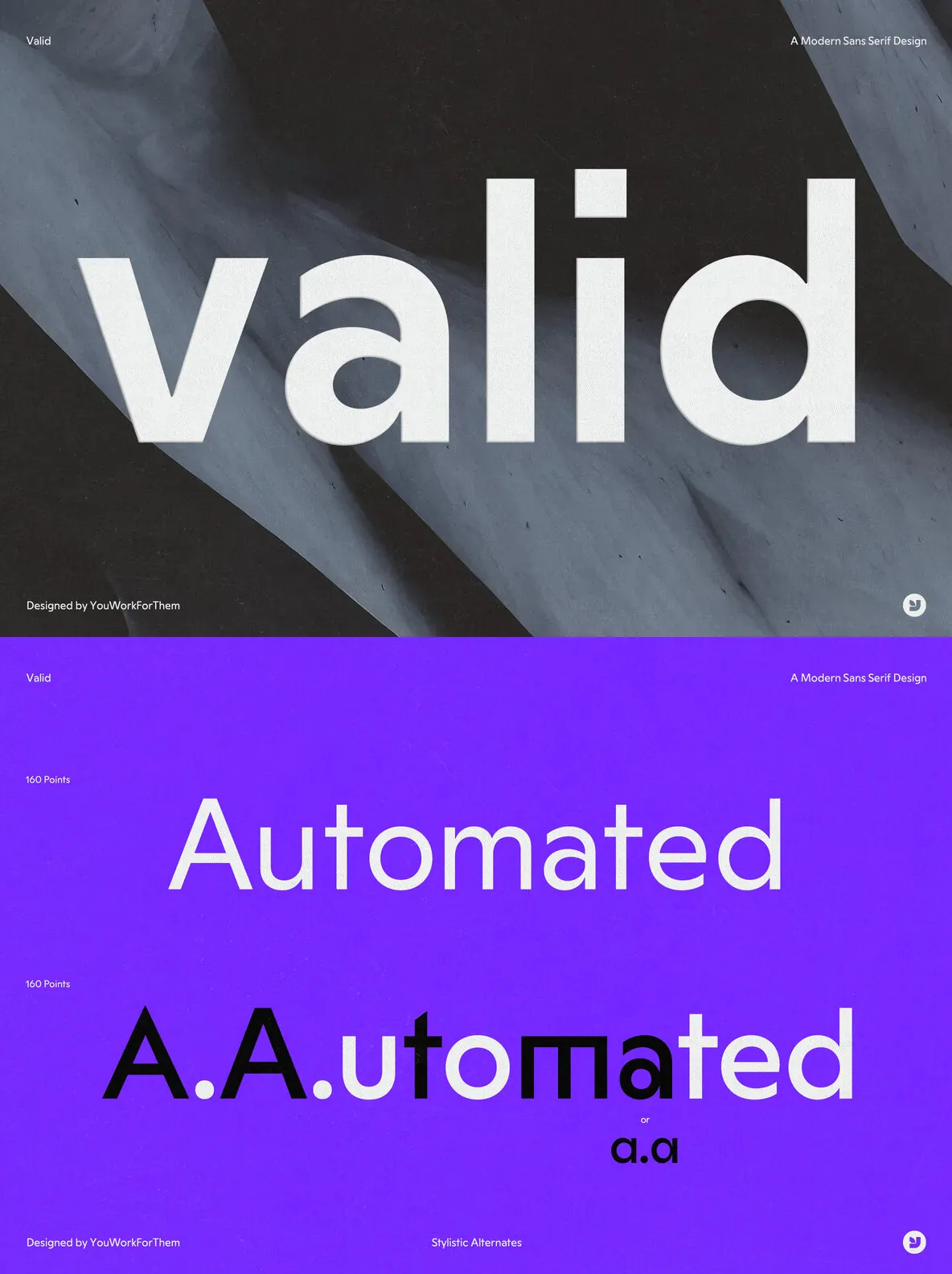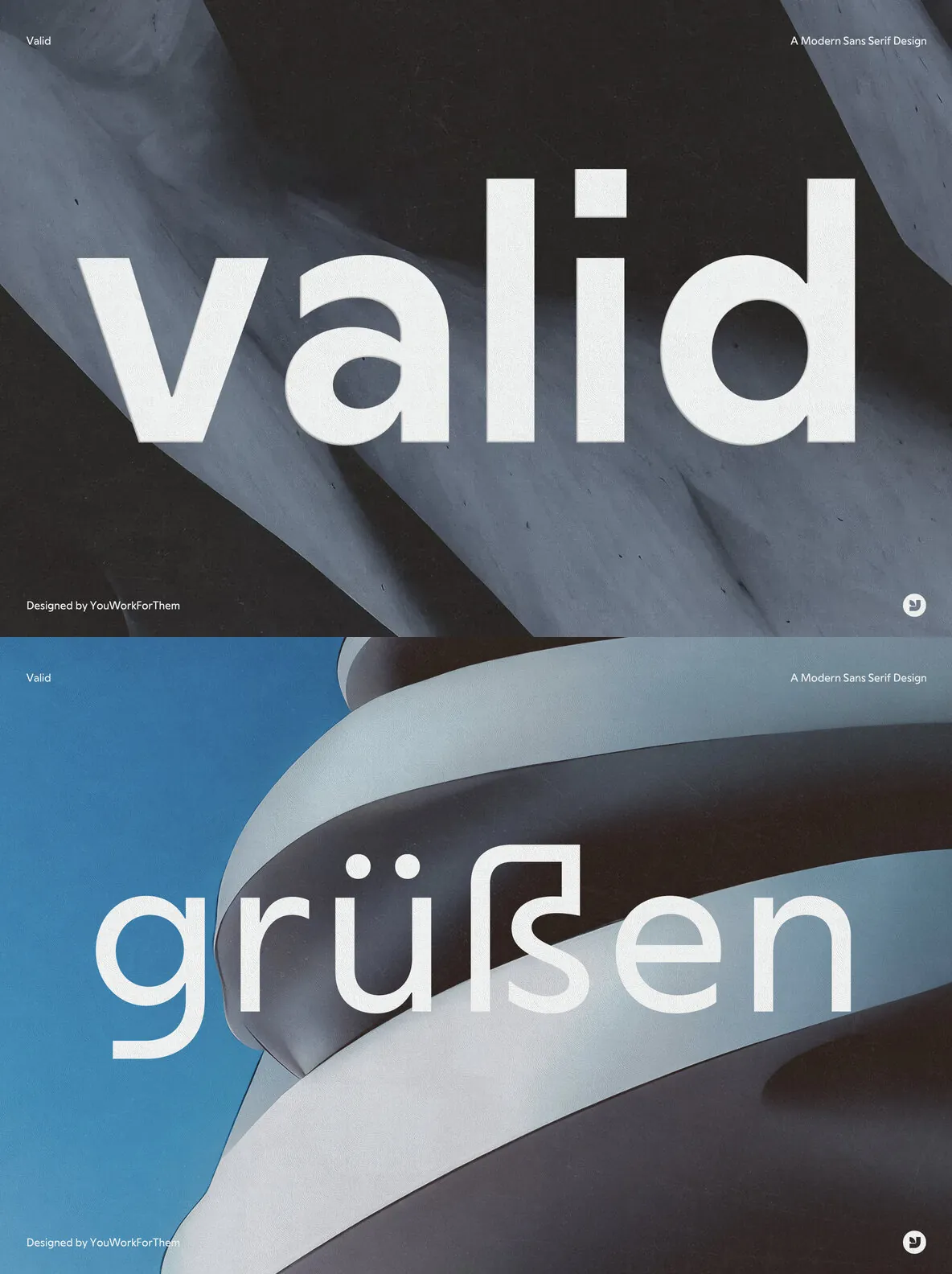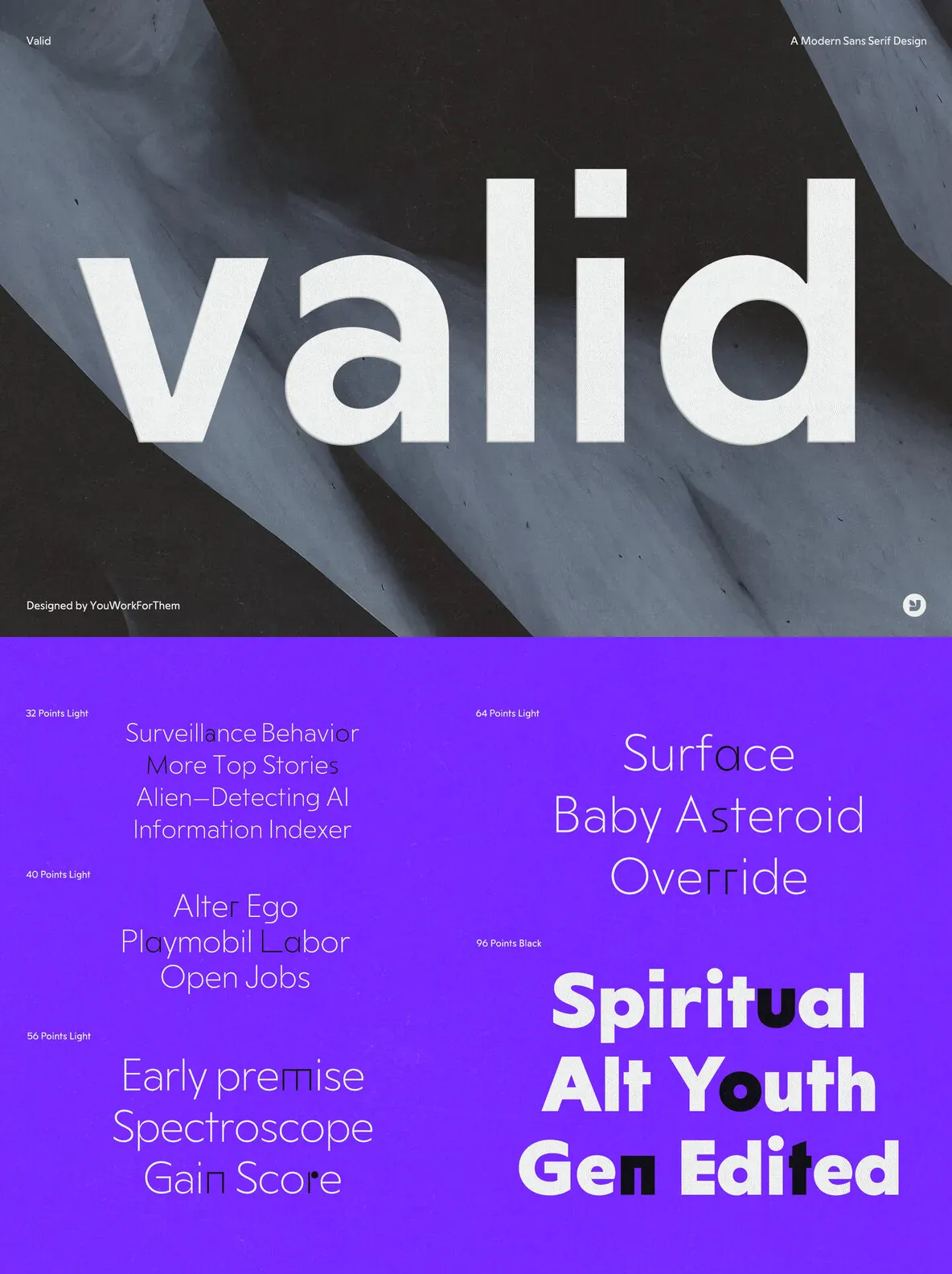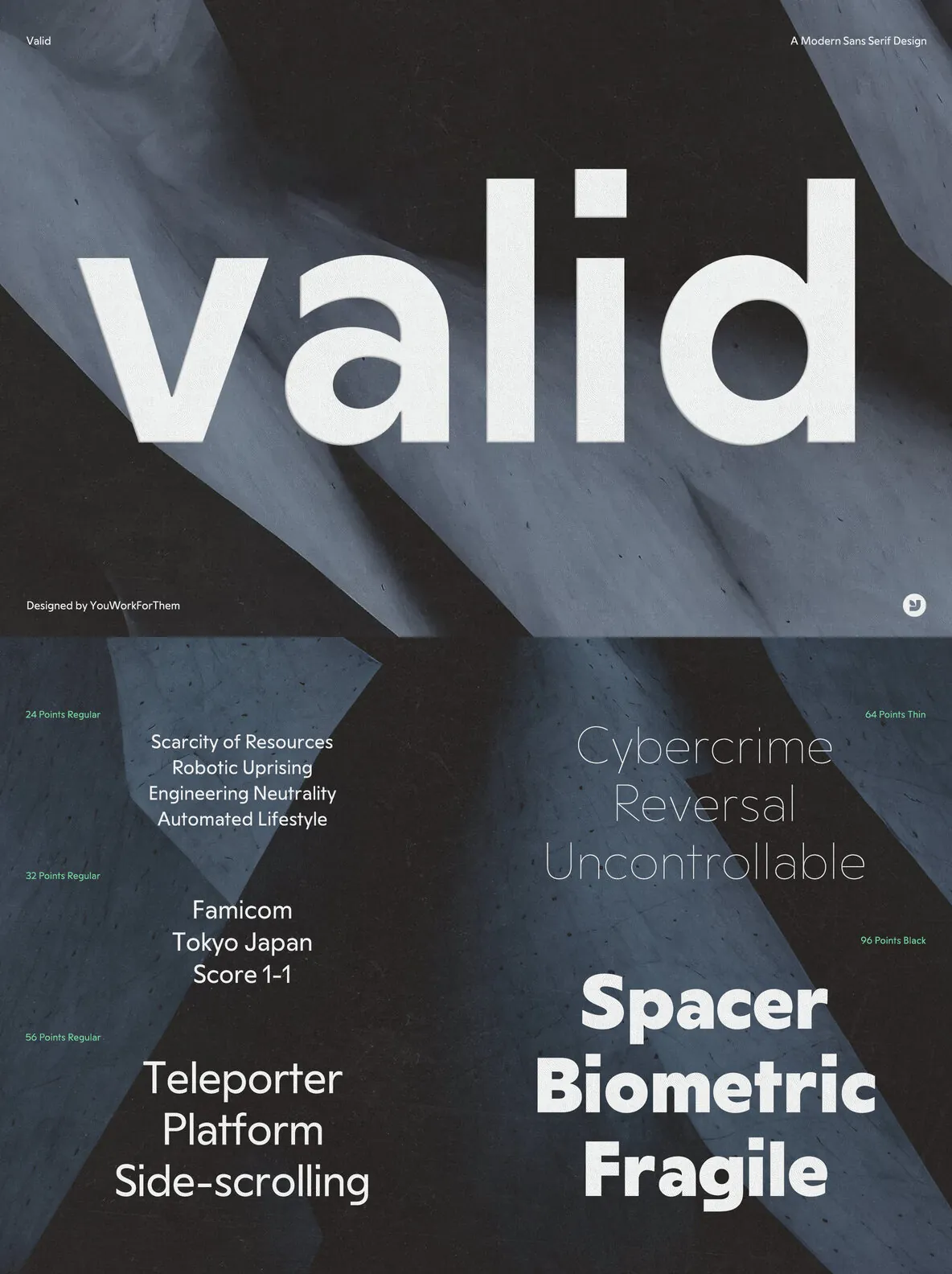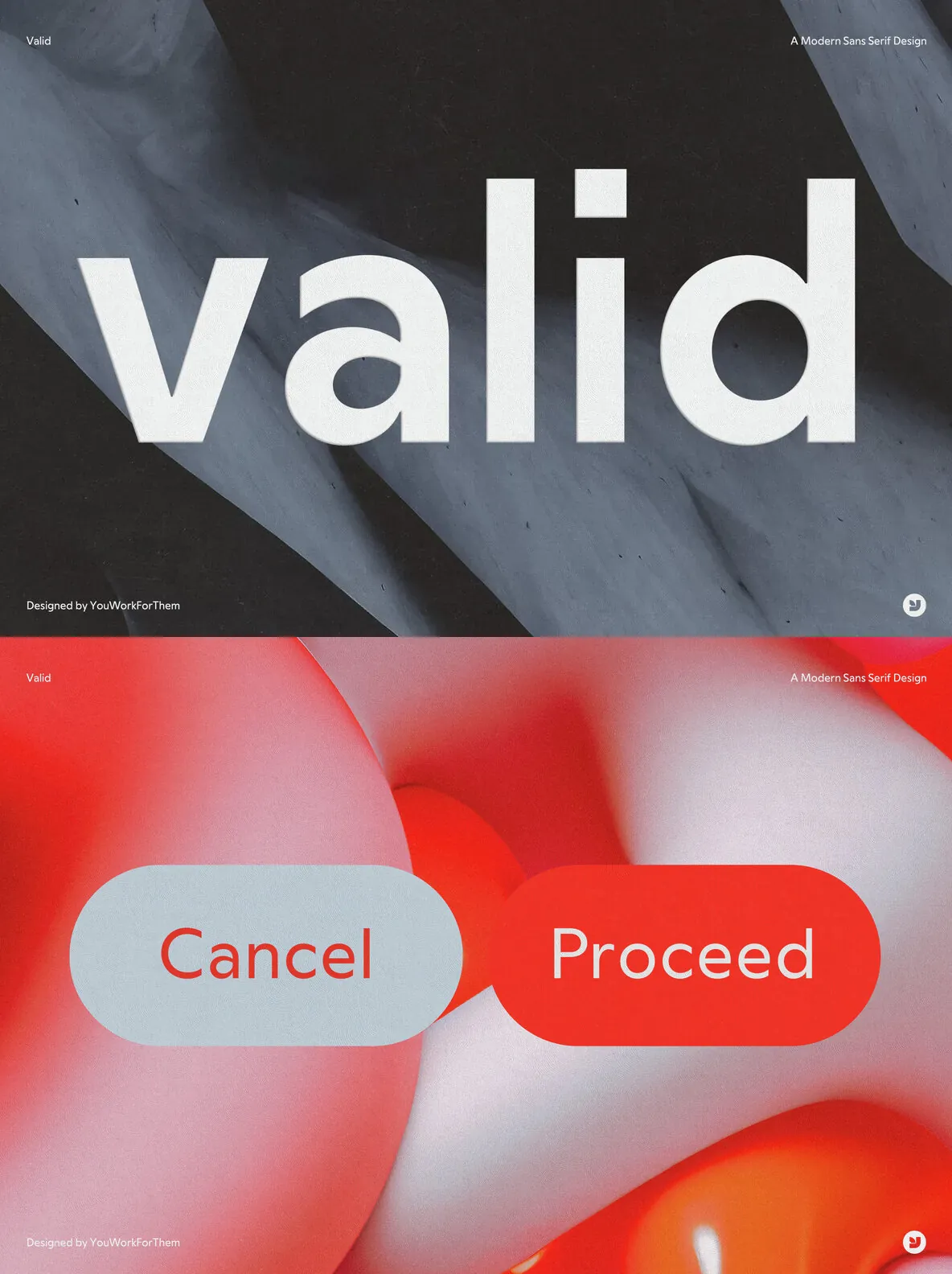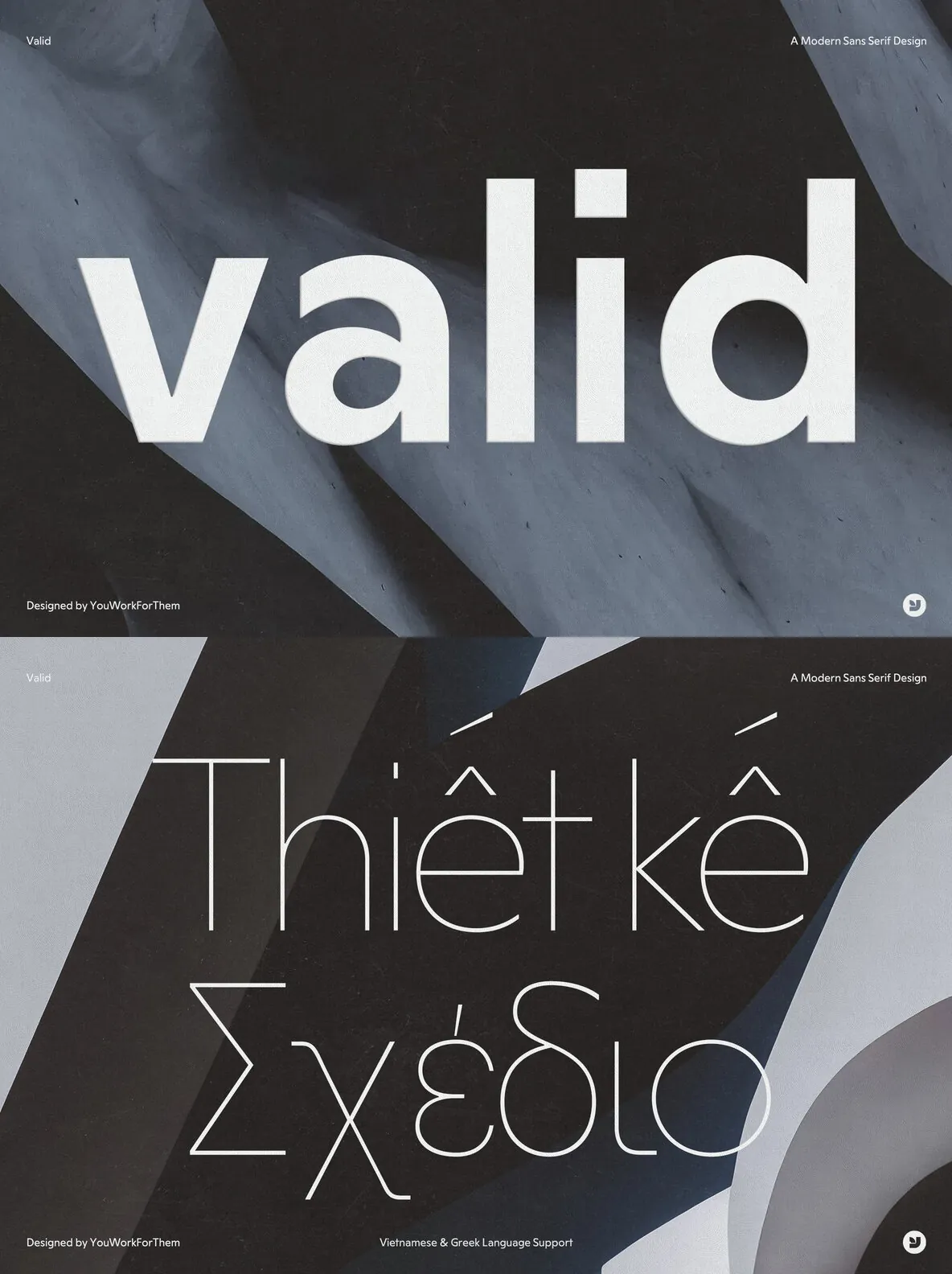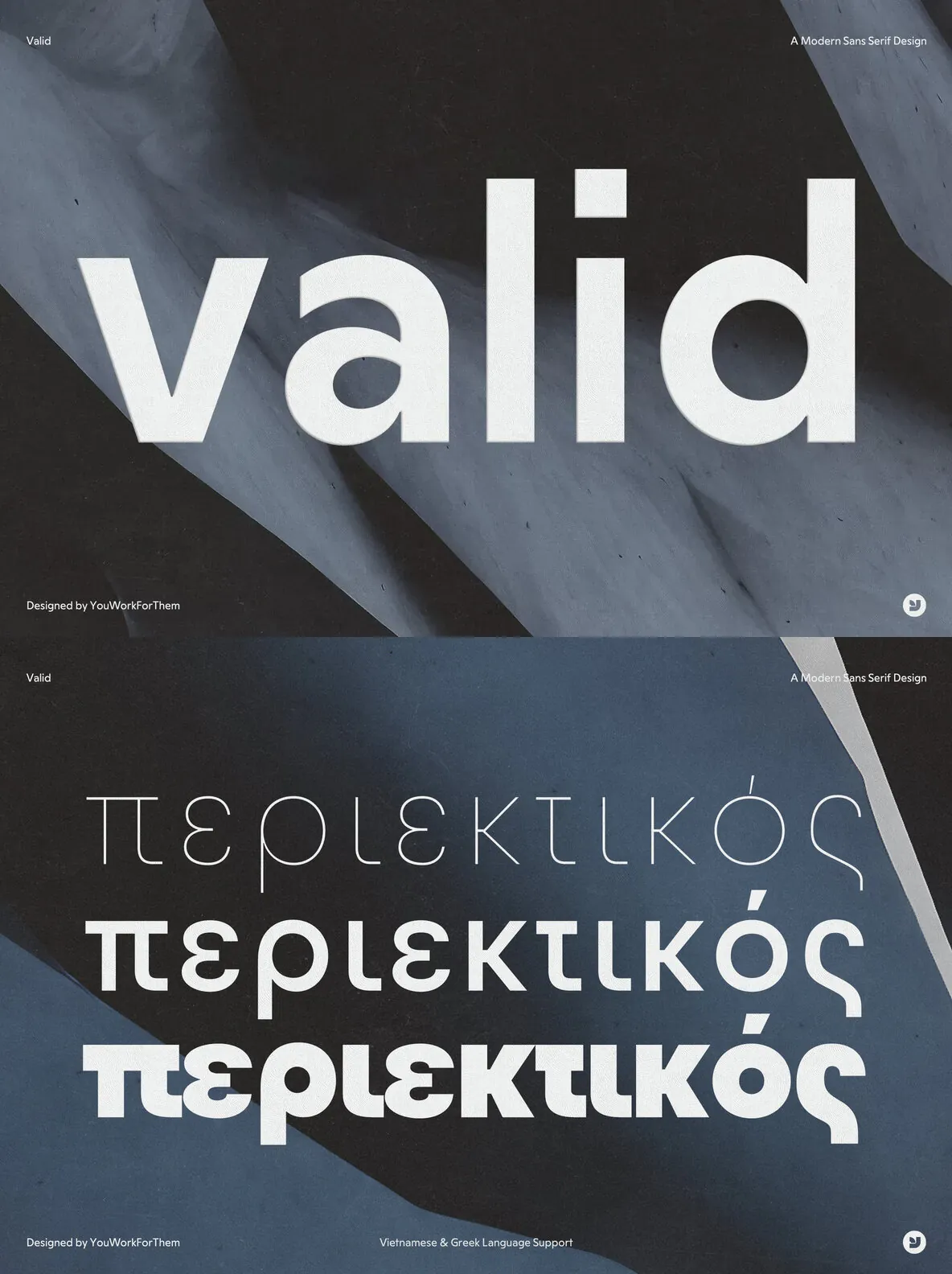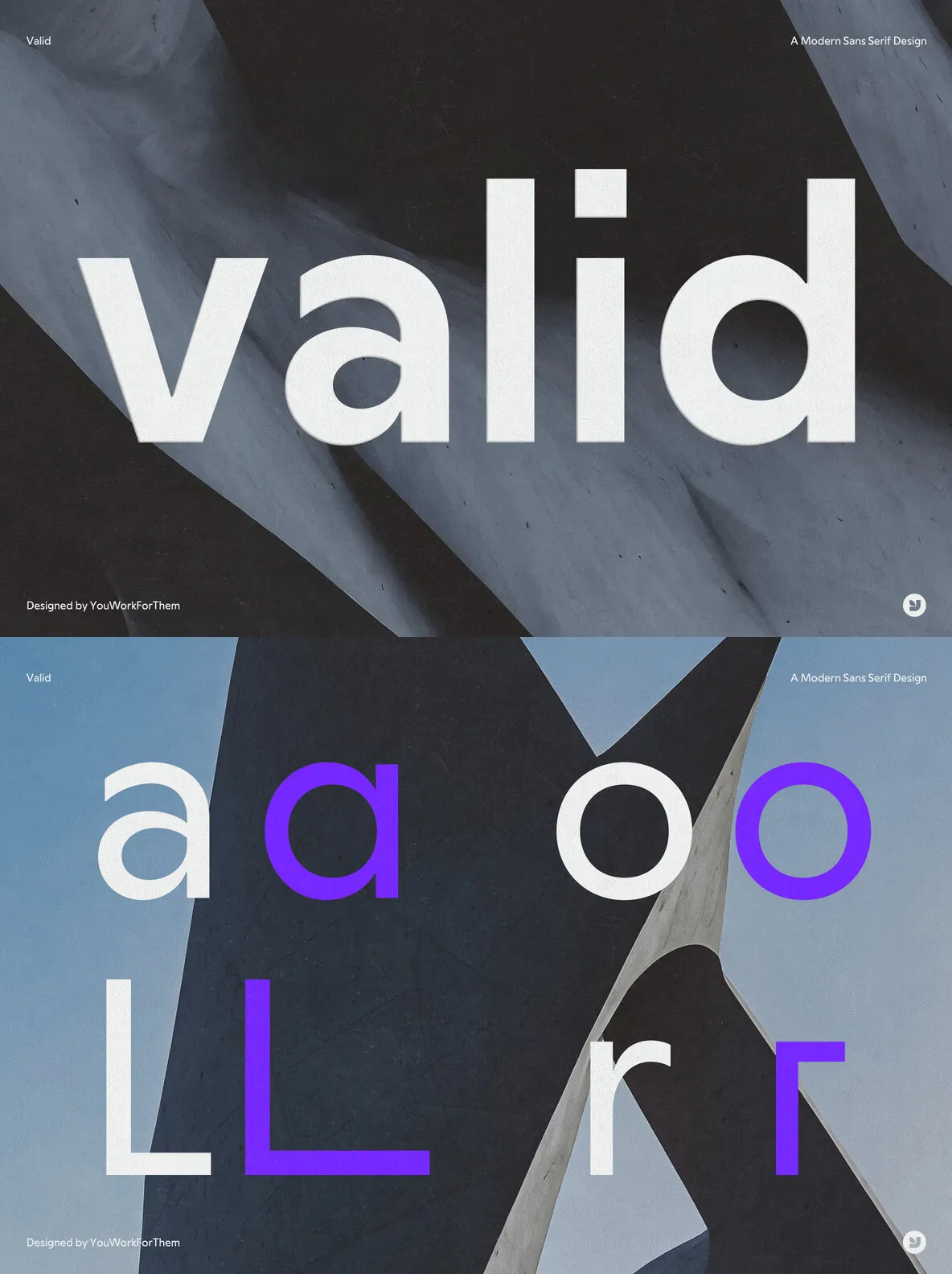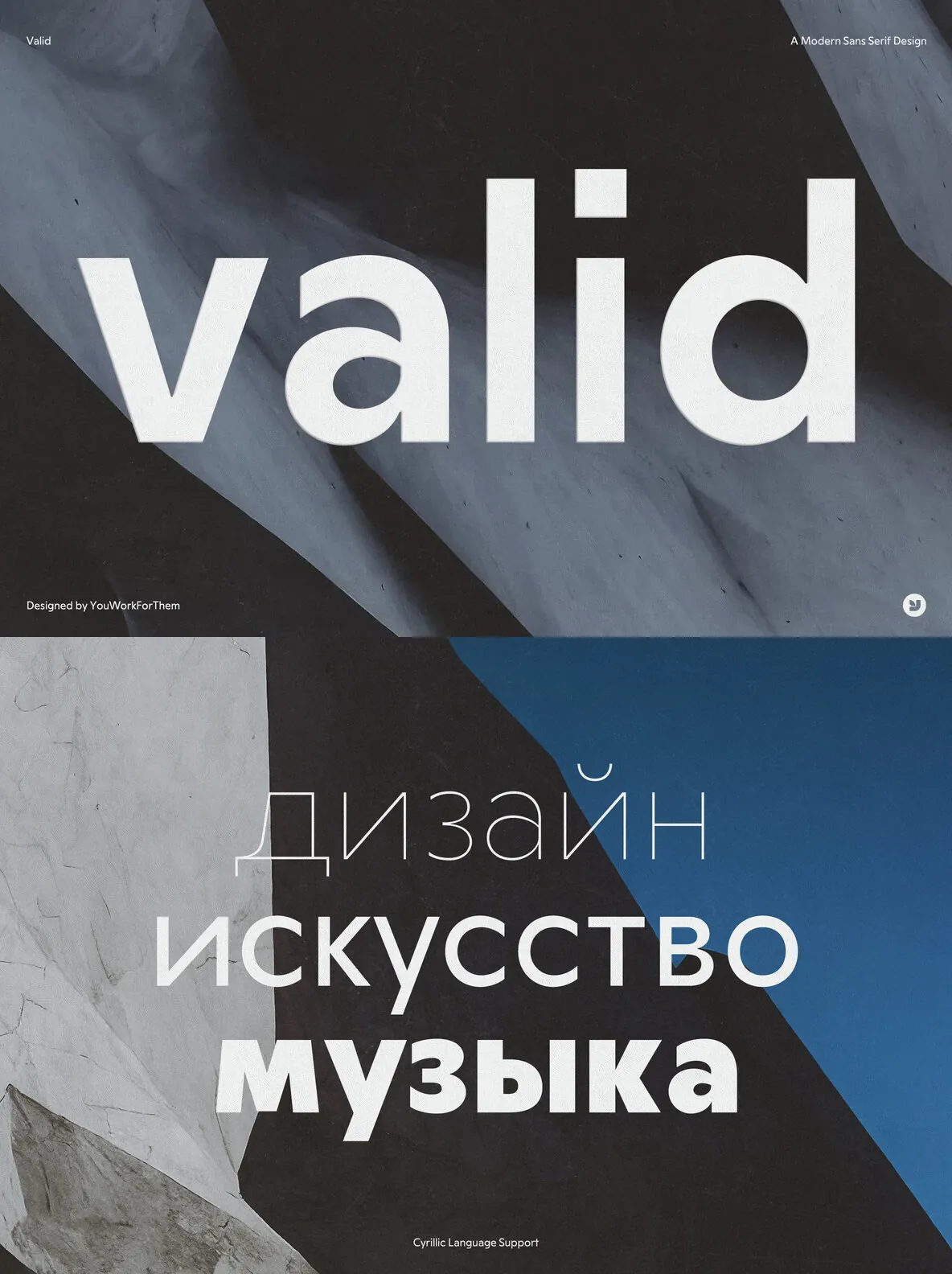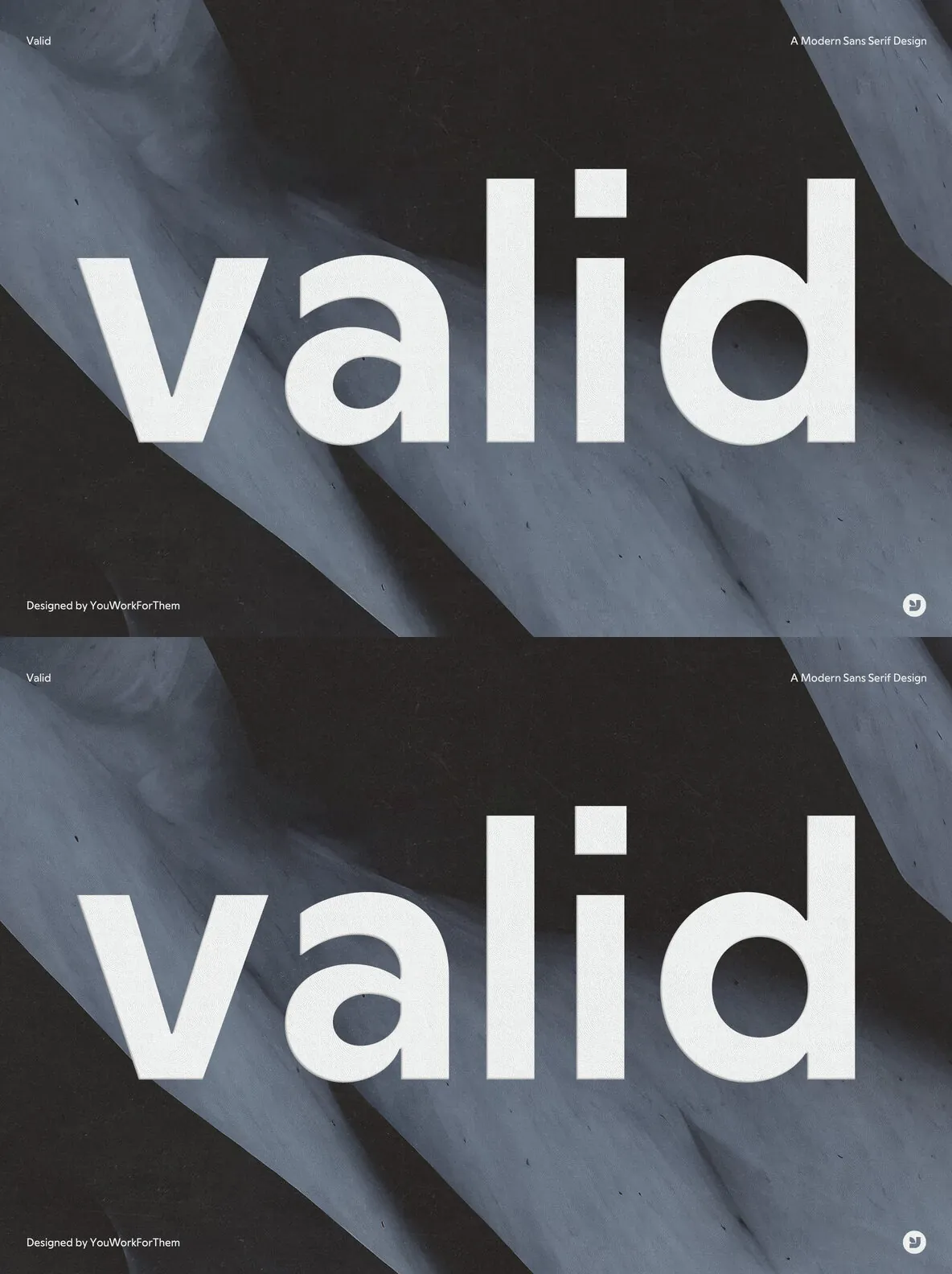
Introducing Valid: The All-New Sans-Serif Typeface for Modern Design
Valid is the latest addition to our font library, designed and published by YouWorkForThem. This all-new sans-serif typeface was created from the ground up, using Bauhaus design principles as its foundation but with a modern and geometric twist. The result is a versatile and stylish font that works seamlessly for a wide range of design projects, including mobile apps, social media marketing, content, headers, and display use.
The Design Philosophy Behind Valid
At YouWorkForThem, we believe that great design is the cornerstone of all creative projects. That’s why we designed Valid with a unique blend of traditional and modern design principles. Our team of designers drew inspiration from the Bauhaus movement, which emphasized functionality and simplicity, to create a clean and minimalist design that is both elegant and efficient. We combined this classic design approach with a contemporary geometric twist, resulting in a typeface that is both timeless and modern.
OpenType Font Features:
Stylistic Alternates
Discretionary Ligatures
Localized Forms
Stylistic Sets
Extended Language Support:
Latin
Greek
Cyrillic
Vietnamese
Western European
Euro
Baltic
Central European
Pan African Latin
Dutch
The Versatility of Valid for Digital Design
Valid is a versatile typeface that is perfect for use in digital design projects. It has been optimized for mobile apps, social media marketing, content, display use, headers, and more. The font has six important foundation styles, including Thin, Light, Regular, Medium, Bold, and Black which provide the most important foundation for great content design. With 720+ glyphs to start with, Greek and Vietnamese language support, and some really cool stylistic alternate glyph options to play with, all of which can be seen in the slideshow, you have plenty of creative options to make your designs stand out.